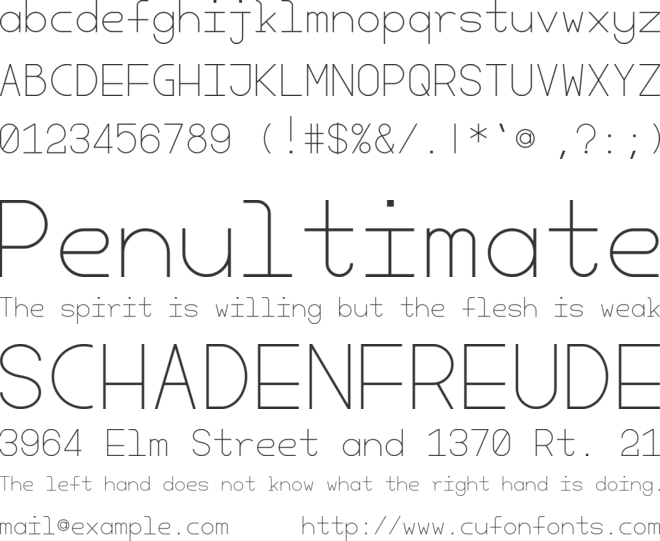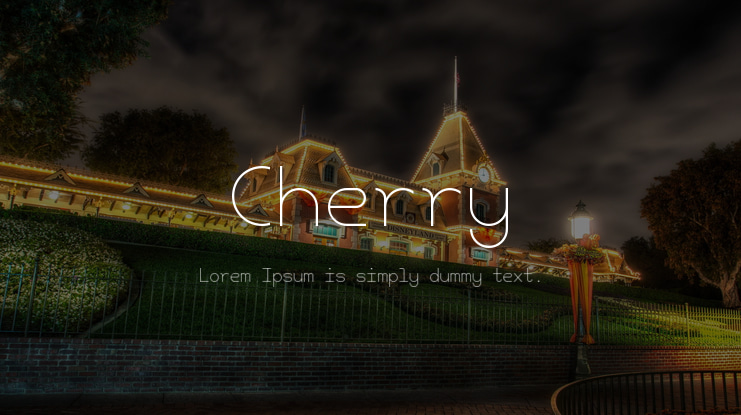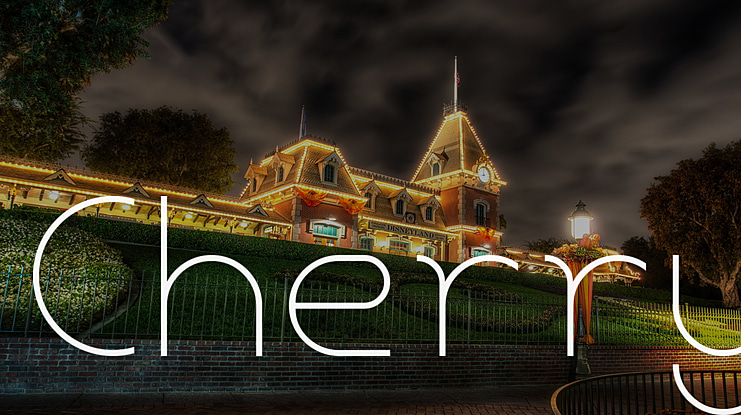
This font is a light version of Cherry-Monospace typeface and designed(and recommended) in order to write programs codes (but also it's smooth enough for using in large scales).font has not any lookup tables,either for kerning or substitution. you can USE (any where) or IMPROVE this font under the SIL Open Font License.